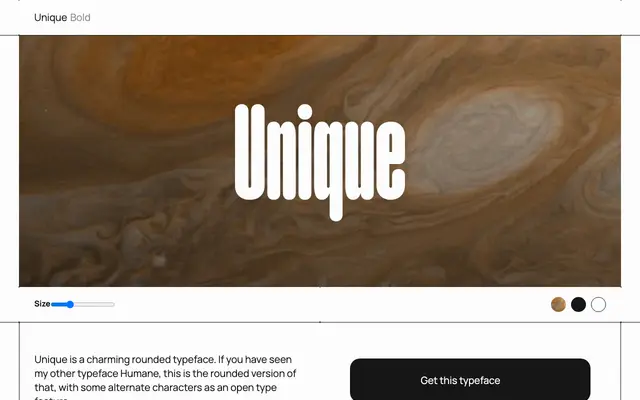
A single-weight bold display sans available as a free typeface with minimal documentation.
Only a Bold weight is offered, suggesting a typeface built for headlines and short-form display use rather than extended text setting. The sparse page content makes it difficult to assess its character coverage or intended applications beyond basic Latin. Available freely through the Free Faces gallery.
With only a Bold weight and the name 'Unique', this appears to be a display-oriented sans-serif typeface, likely with distinctive or experimental letterforms suited to headlines rather than body text.